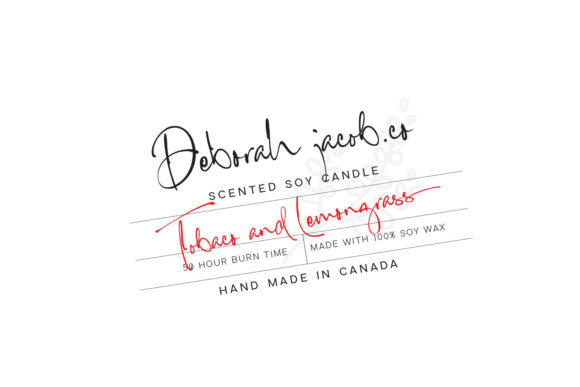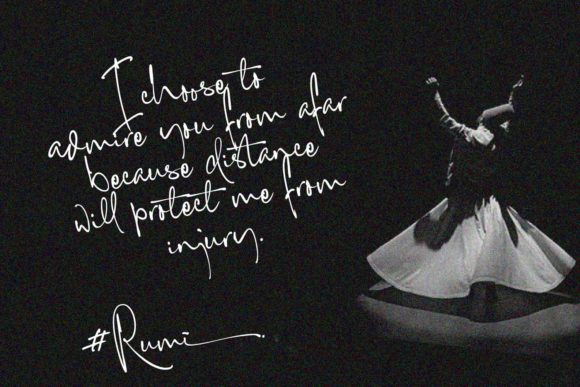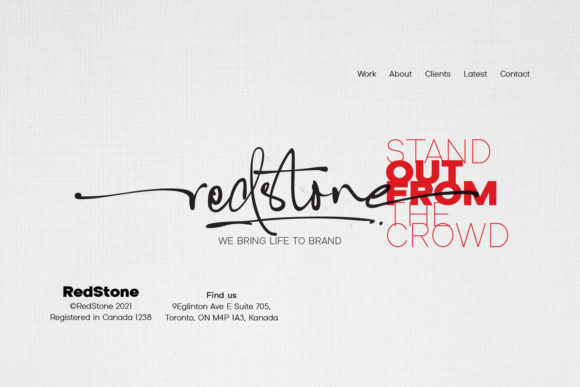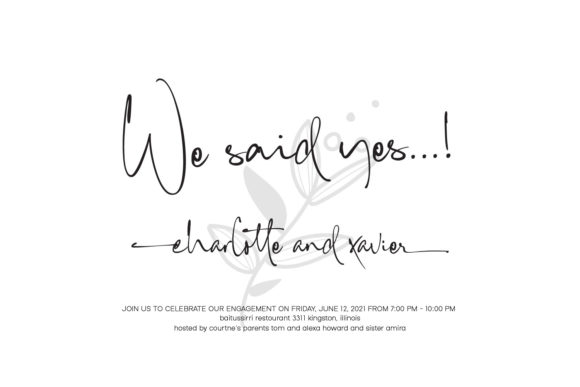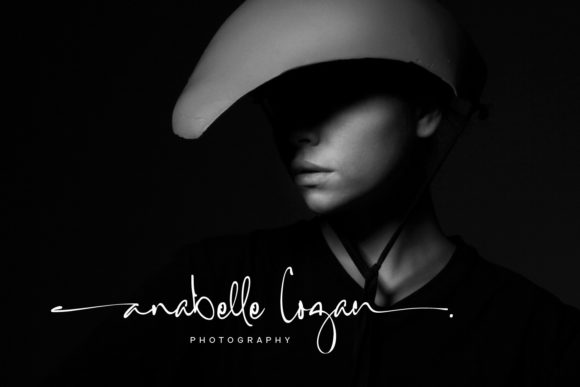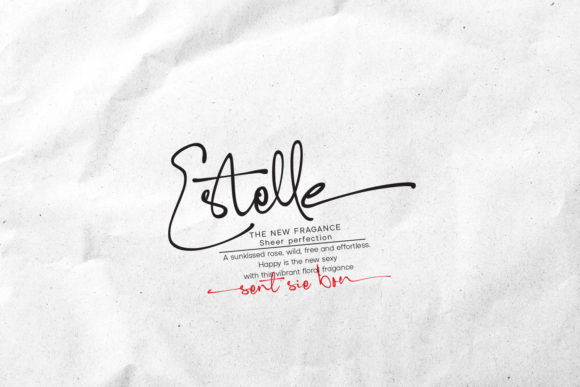
Introducing Androgino Font: Elevate Your Designs with Elegance and Sophistication
In the world of typography, fonts play a crucial role in conveying the tone and aesthetic of a design. For crafters, designers, and DIY enthusiasts, finding the perfect font can make all the difference in creating visually stunning and professional-looking projects. If you’re on the hunt for a unique and elegant font, look no further than Androgino Font. In this article, we’ll dive into the features, benefits, and uses of Androgino Font, and explore how it can elevate your designs to the next level.
What is Androgino Font?
Androgino Font is a beautiful, handwritten font characterized by its slim characters and sleek style. Its distinctive features make it an excellent choice for a variety of design applications, from wedding invitations and birthday cards to thank you notes and other delicate creations. With Androgino Font, you can add a touch of sophistication and elegance to your designs, making them truly unforgettable.
Key Features of Androgino Font
- Unique Handwritten Style: Androgino Font boasts a distinctive handwritten style that sets it apart from other fonts. Its fluid, cursive lines and slim characters create a sense of elegance and refinement.
- Sleek and Modern: The font’s sleek design makes it perfect for modern designs that require a touch of sophistication.
- Highly Versatile: Androgino Font can be used for a wide range of design applications, from stationery and greeting cards to branding and packaging.
- Easily Readable: Despite its slim design, Androgino Font is highly readable, making it suitable for both digital and print designs.
Uses of Androgino Font
Androgino Font is an incredibly versatile font that can be used for various design projects. Here are some popular uses of this beautiful font:
- Wedding Invitations: Add a touch of romance and elegance to your wedding invitations with Androgino Font.
- Birthday Cards: Create personalized and stylish birthday cards that will make the recipient feel special.
- Thank You Notes: Express your gratitude with beautifully designed thank you notes featuring Androgino Font.
- Branding and Packaging: Use Androgino Font to create a cohesive brand identity that exudes sophistication and elegance.
Tips for Using Androgino Font
To get the most out of Androgino Font, here are some tips to keep in mind:
- Pair with Complementary Fonts: Combine Androgino Font with complementary fonts to create a visually appealing design.
- Experiment with Colors: Try out different color schemes to find the perfect match for your design.
- Pay Attention to Spacing: Ensure that your design has sufficient spacing to allow Androgino Font to shine.
Androgino Font is a stunning, handwritten font that can elevate your designs to new heights. Its unique features, versatility, and elegance make it an excellent choice for crafters, designers, and DIY enthusiasts. Whether you’re creating wedding invitations, birthday cards, or branding materials, Androgino Font is sure to impress. So why wait? Download Androgino Font today and add a touch of sophistication to your designs!